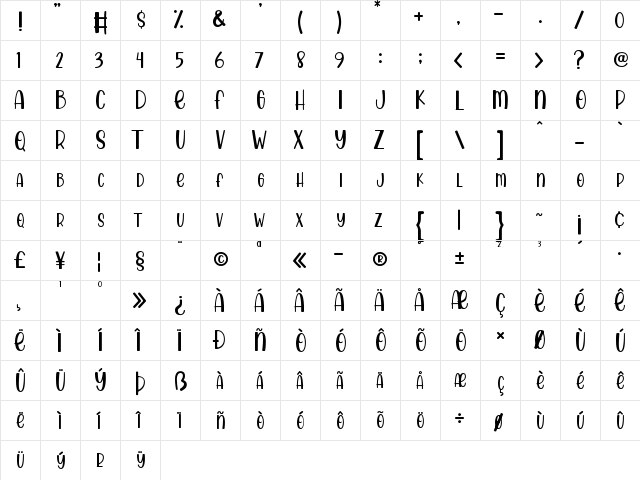
Almond Caramel Regular
| Designer | Dimas Prasetyo |
Design Context for Almond Caramel Typeface
Almond Caramel is a composed and adaptable typeface that performs quietly and consistently across a wide range of design contexts.